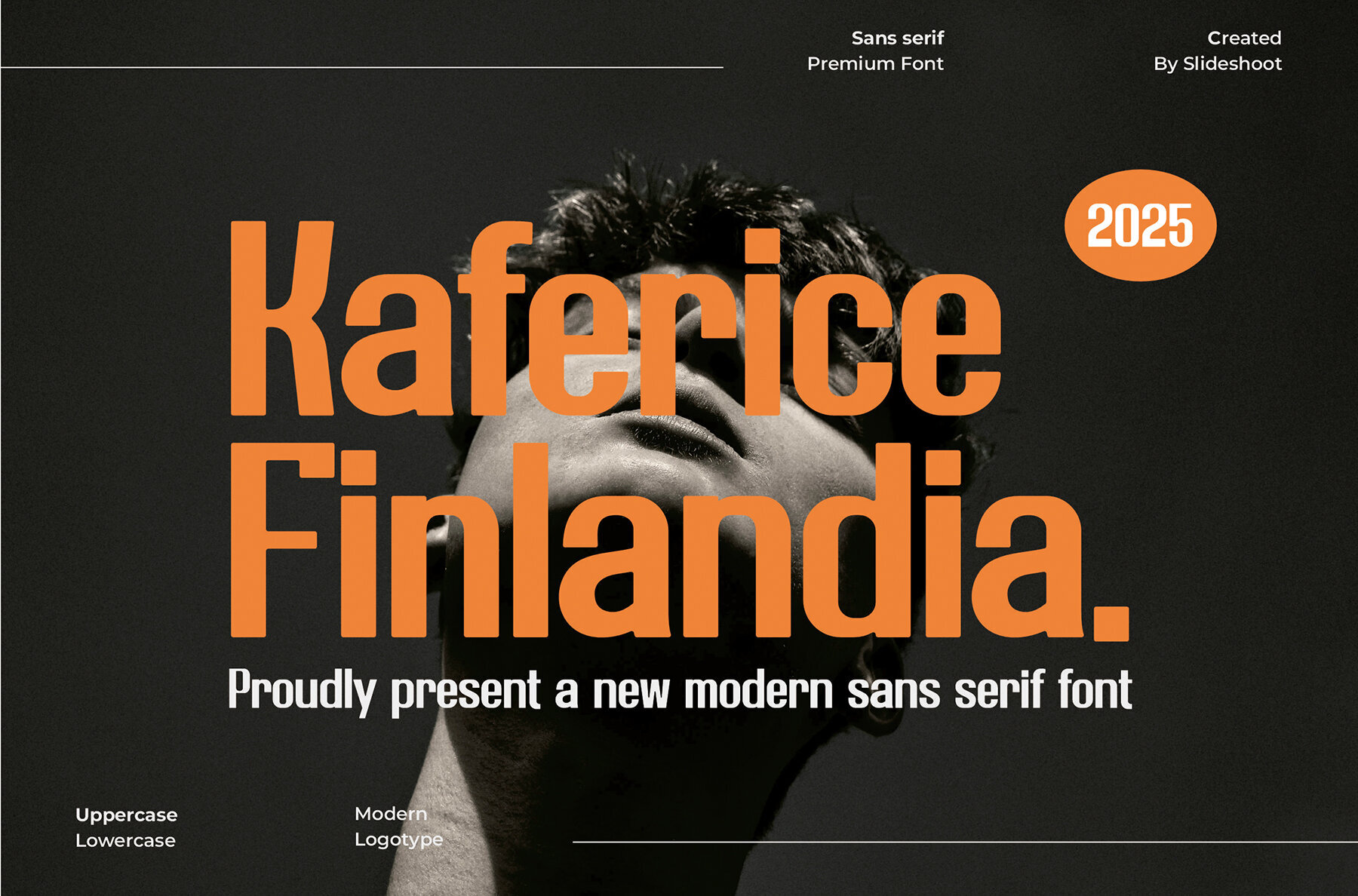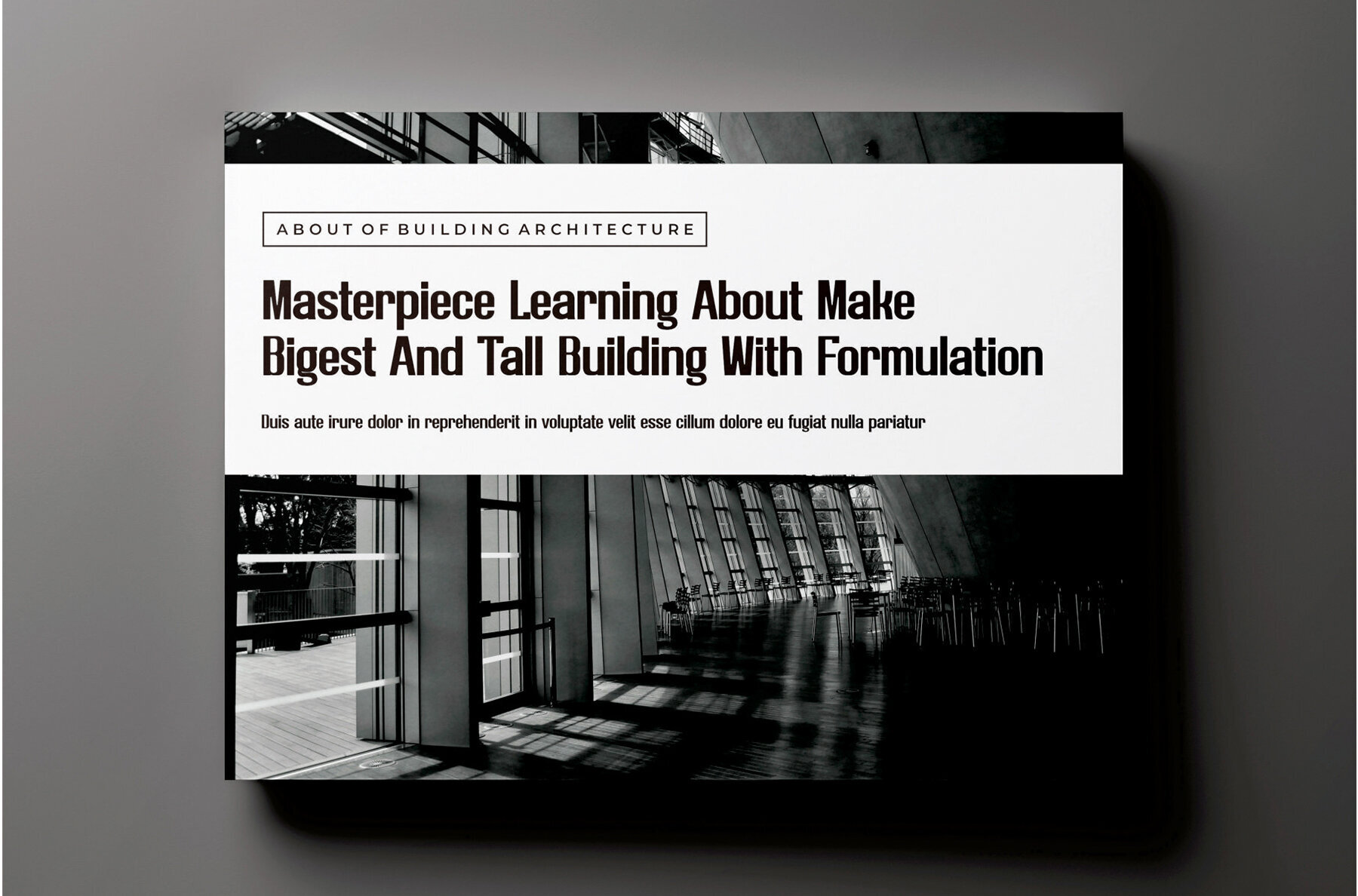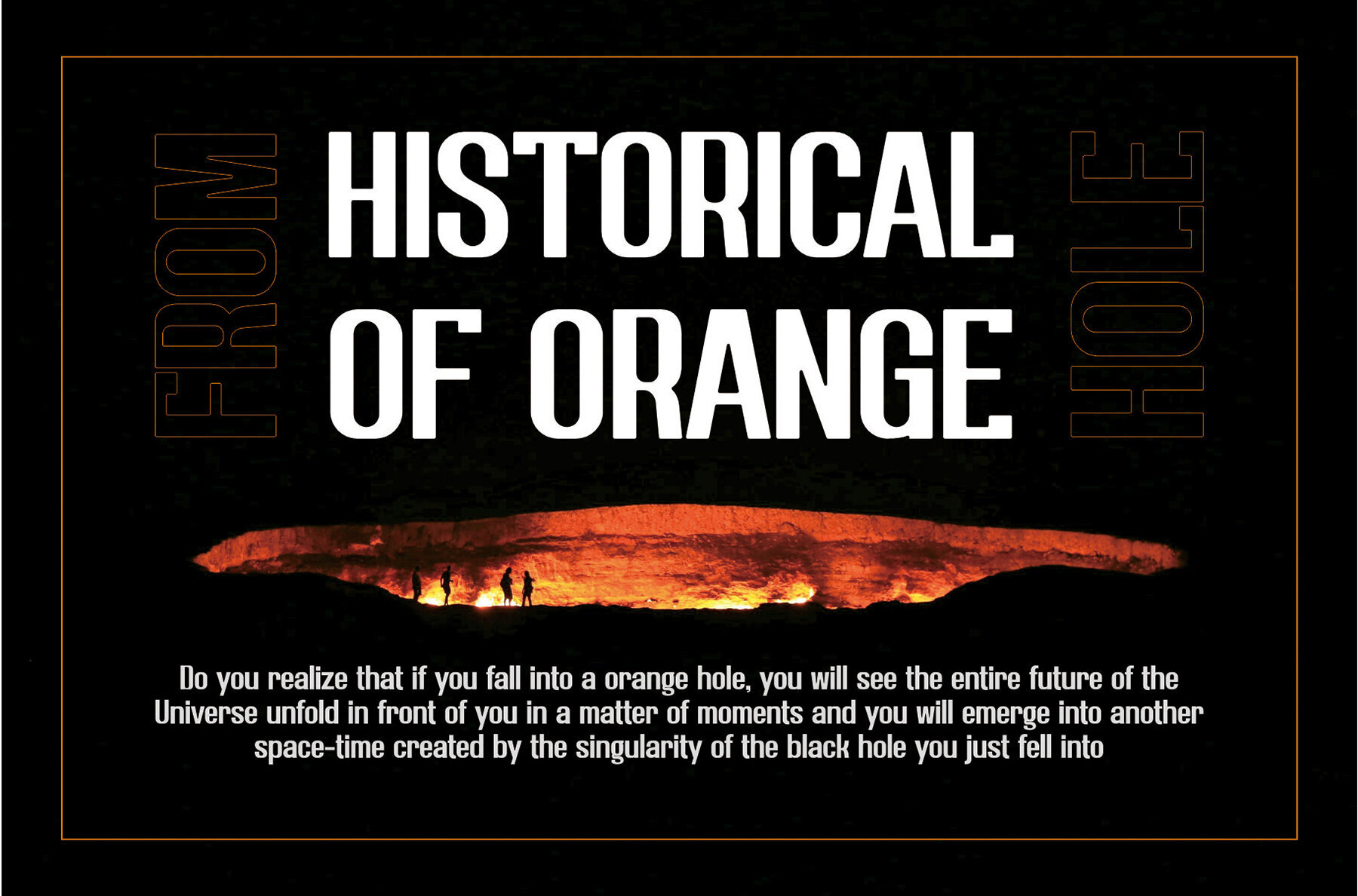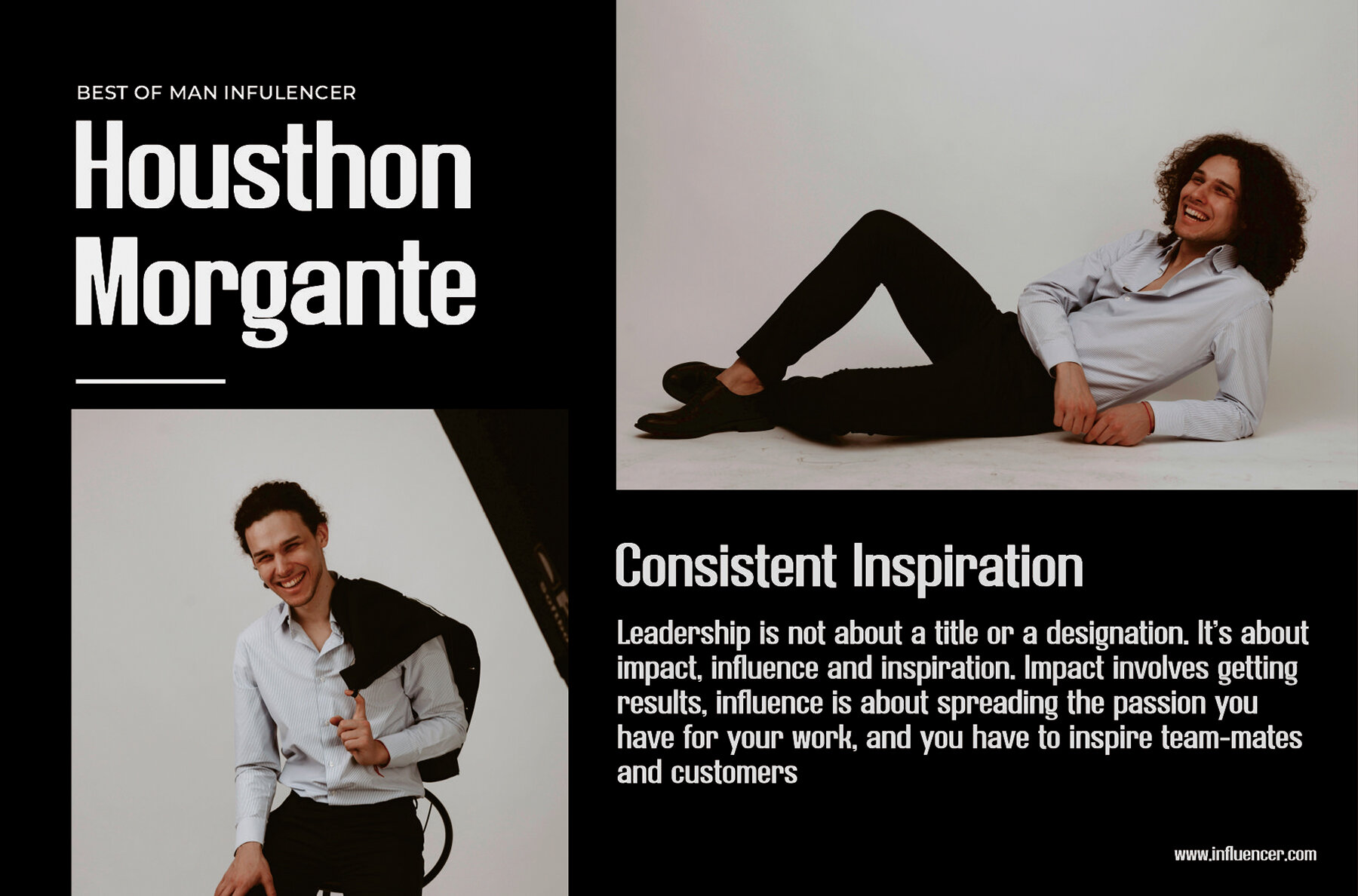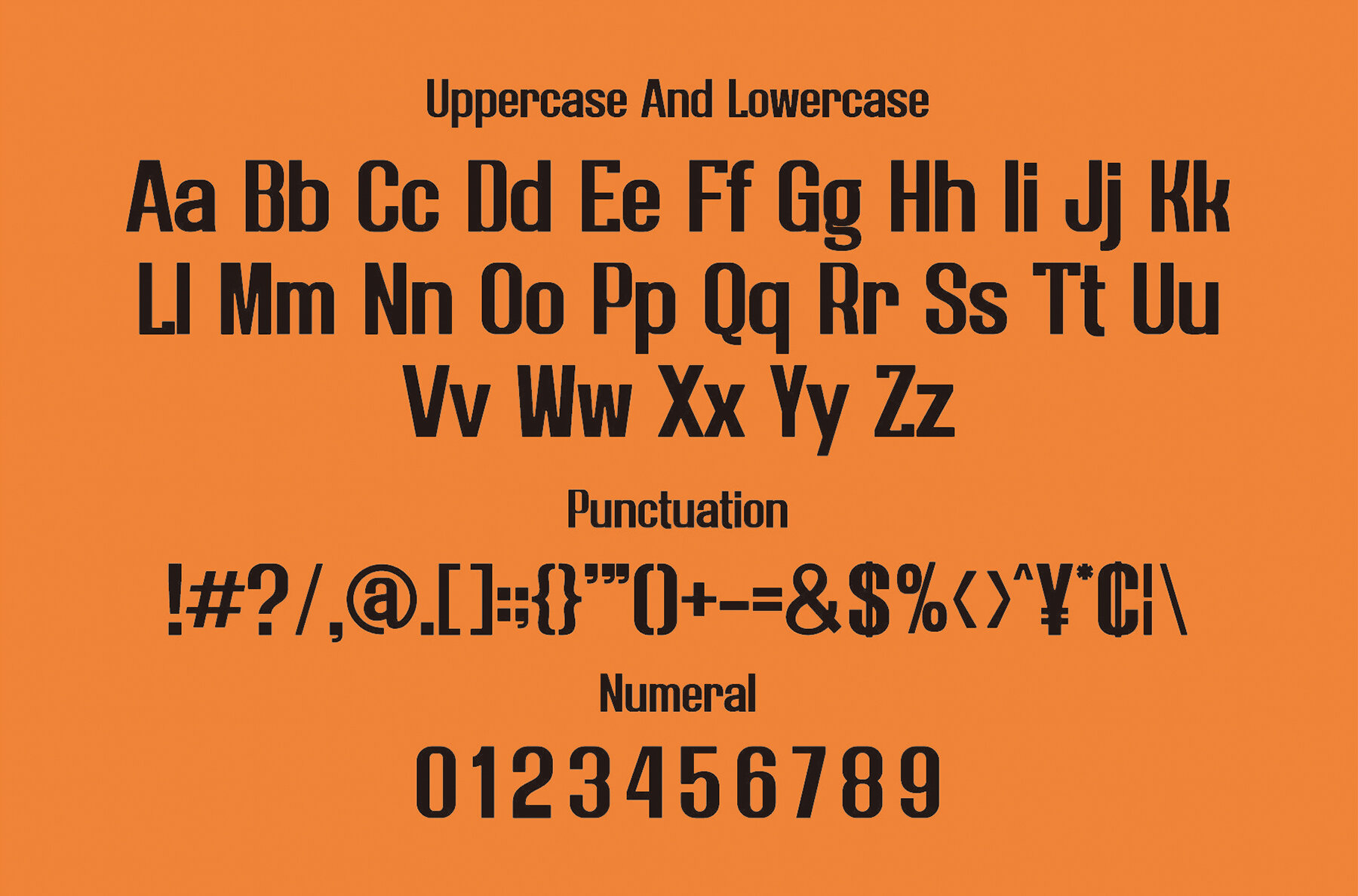
Kaferice Findlandia Font
Kaferice Findlandia
Meet Kaferice Findlandia, a charming sans serif font that combines modern trends with a playful, bouncy flair. This display font features a unique wood-themed character, making it an excellent choice for a variety of creative projects. Whether designing invitation cards, crafting company logos, or creating engaging book titles, Kaferice Findlandia adds a distinctive touch to any design.Kaferice Findlandia Sans Serif Font